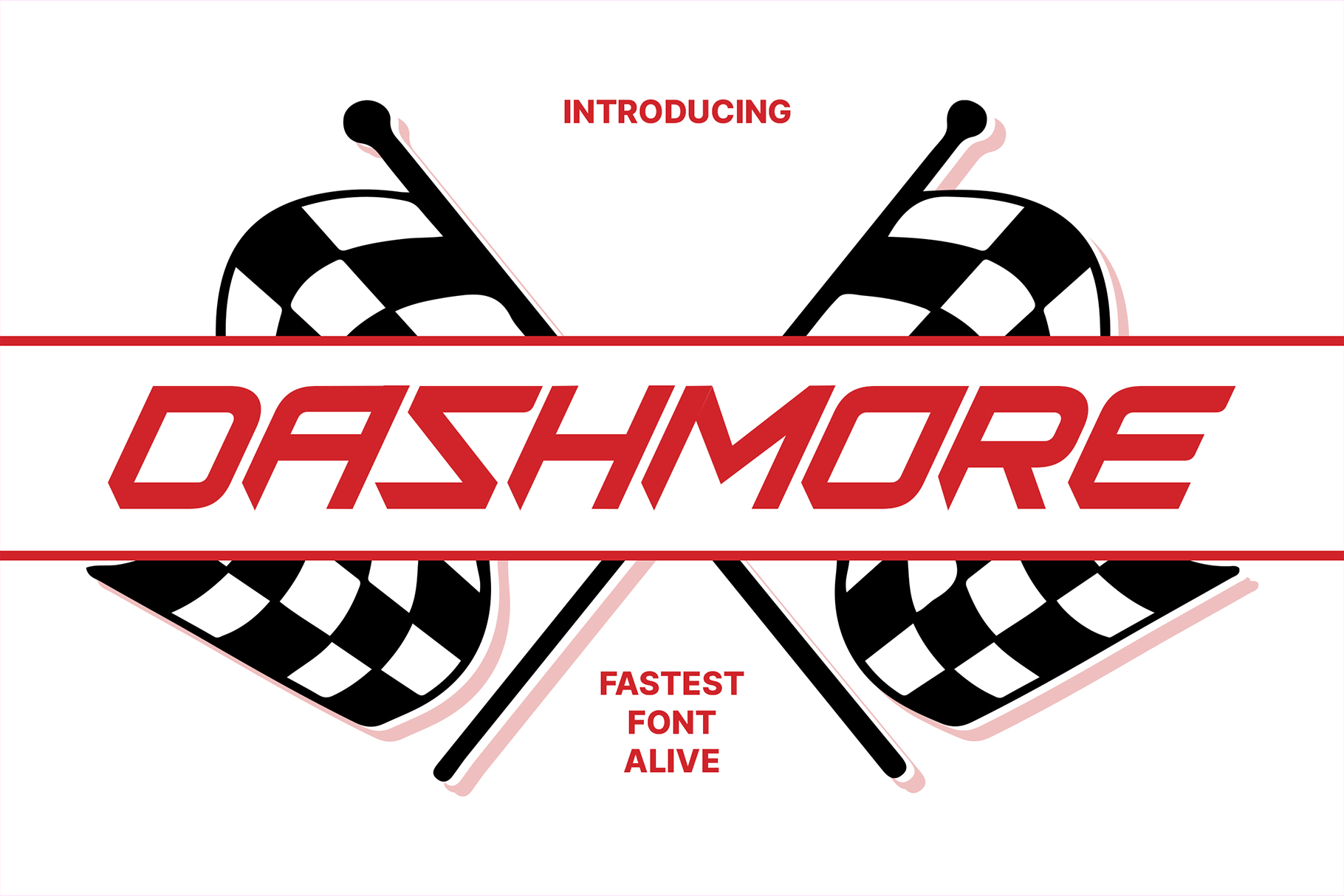
Dashmore - Fast Racing Fonts
Experience the perfect fusion of vintage charm and modern elegance with Dashmore, the font that captures the heart-pounding excitement of the racing world. Every letter in Dashmore is meticulously crafted to bring the speed, precision, and dynamic energy of the racetrack to your designs.
Whether you're designing for automotive brands, sports events, or any project that needs a high-octane touch, Dashmore delivers. Its bold lines and sleek curves evoke the golden age of racing while maintaining a contemporary edge, making it versatile for any creative endeavor.
Rev up your typography and leave a lasting impression with Dashmore. Because in the race for exceptional design, every detail counts.